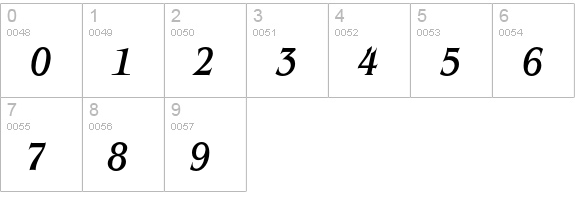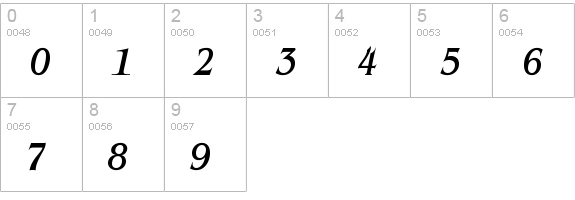
BenguiatEF-MediumCondensedIta is a versatile and elegant font that exudes sophistication and style. Its condensed design adds a modern twist to the classic Benguiat typeface, making it a perfect choice for projects that require a sleek and professional look. The italicized version of this font adds a touch of flair and personality, making it suitable for a wide range of design applications. What sets BenguiatEF-MediumCondensedIta apart is that it is available for free download at FontsMarket.com. This means that you can access this high-quality font without any cost, making it a valuable asset for designers, creatives, and anyone looking to enhance their projects with a premium typeface. Whether you're working on branding materials, advertising campaigns, or digital designs, BenguiatEF-MediumCondensedIta is sure to elevate your work with its unique charm and versatility.